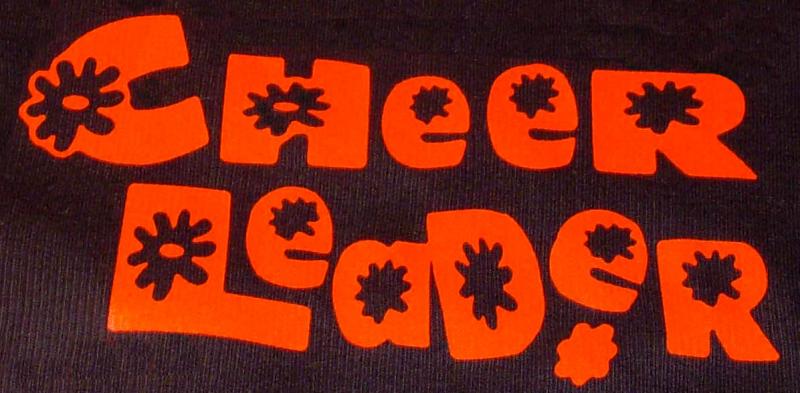
Anyone recognize this font?
I have looked at all the font sites and couldn't find
this font....anyone recognize it?
Every "e" appears to be different from any others. Conclusion = It's not a font.
Well, I thought that at first....but the "e"s are actually the same
just sized differently and turned. The centers of the "e" are all the
same blob and face the same way.
The "R"s too are the same but stretched.
So, I was hoping maybe a font...with manipulation.
There's more than a little stretching going on. If you look closely, you will see the "blobs" in the centers would have had to have had individual nodes moved. The right leg of the "R" comes to more of a point on one than the other, so it wasn't stretched.
Most likely hand drawn, scanned and auto traced.